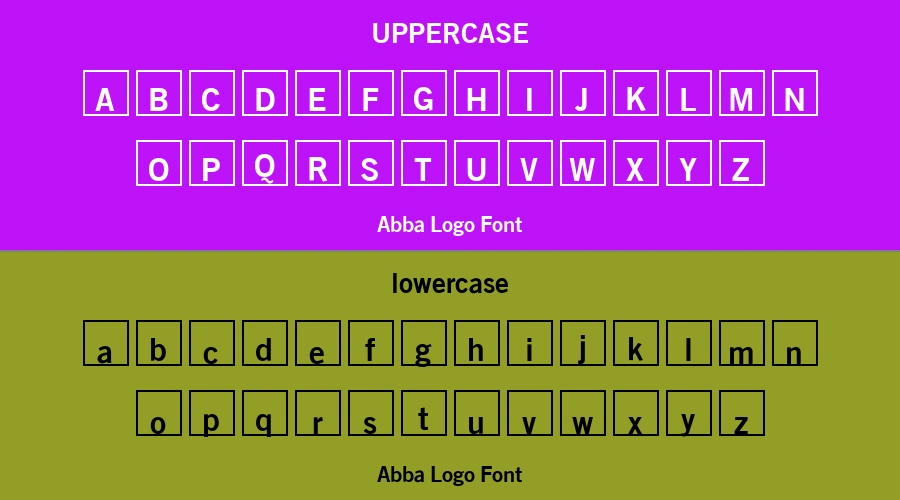
About Abba Logo Font
Abba Logo Font embodies typographic excellence through its masterful combination of commanding presence and quality assurance. Created for advertising campaigns, this typeface delivers exceptional originality and system compatibility across all applications. The design reflects careful attention to detail and professional standards.
Advanced capabilities include distinctive humanist proportions and versatile ordinals, giving designers creative control. When used in brand logos, Abba Logo Font exhibits remarkable headline impact. The harmonious balance between x-height proportion and historical context sets this typeface apart.